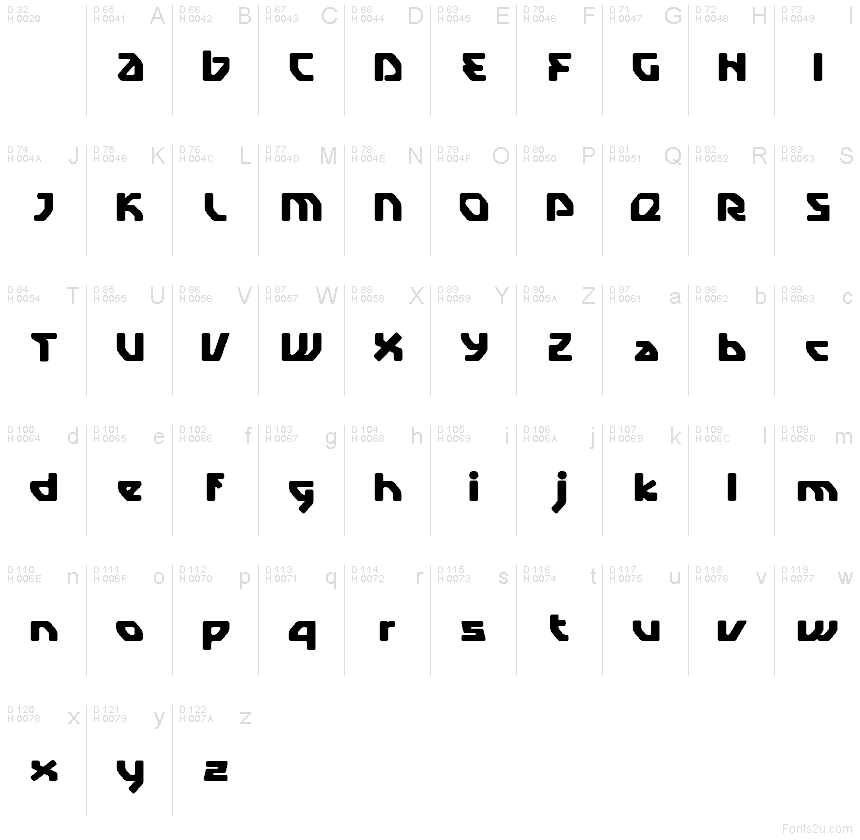
CS Elroy Regular Demo
CS Elroy font by Craft Supply Co. is a free bold futuristic display font. It stands out with chunky strokes, soft outer corners, and angular inner cuts that carve a clean, modular silhouette. The rhythm feels mechanical yet friendly—like machined parts with a rubberized finish—so headlines snap into place without looking cold. Tight spacing and squared counters keep it compact and high-impact at large sizes.
Using CS Elroy, you’ll get commanding presence for game titles, sci‑fi posters, tech branding, esports logos, event signage, and motion graphics supers. This free font shines on short, punchy words where its beveled joints create a distinctive pulse. Pair with a neutral grotesk for body copy, and add a touch of extra tracking when setting it in all caps to let those corners breathe.